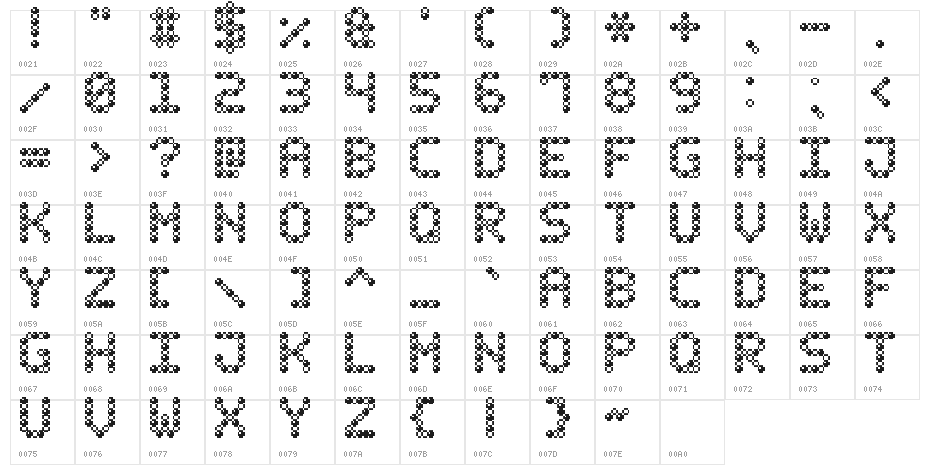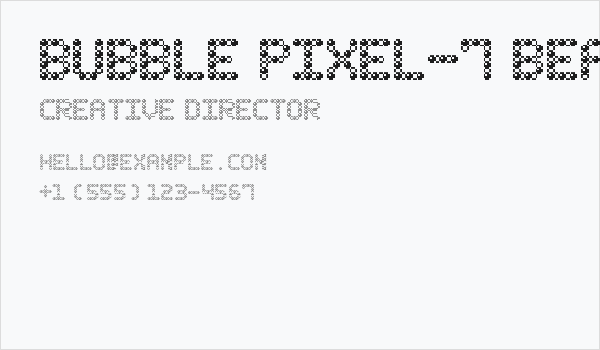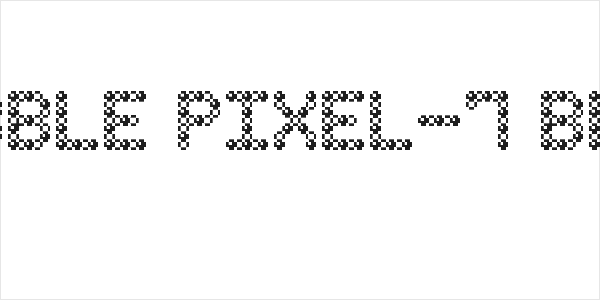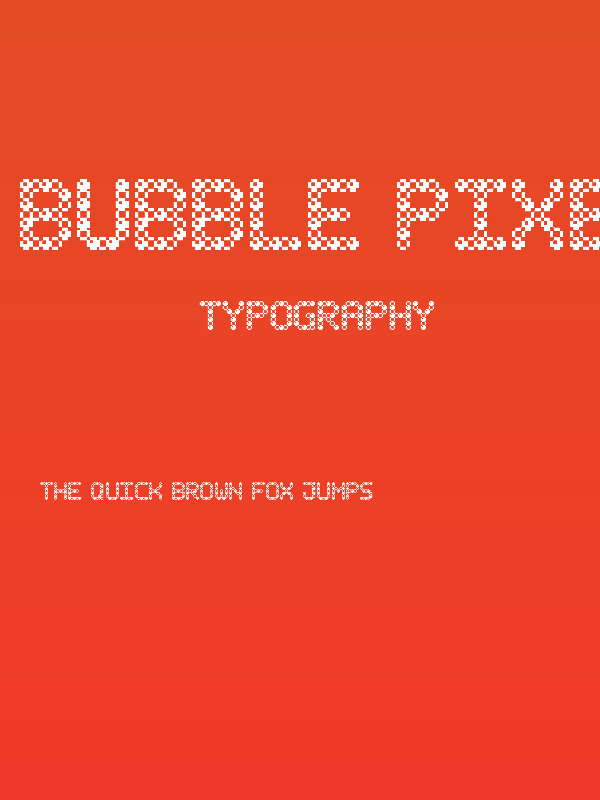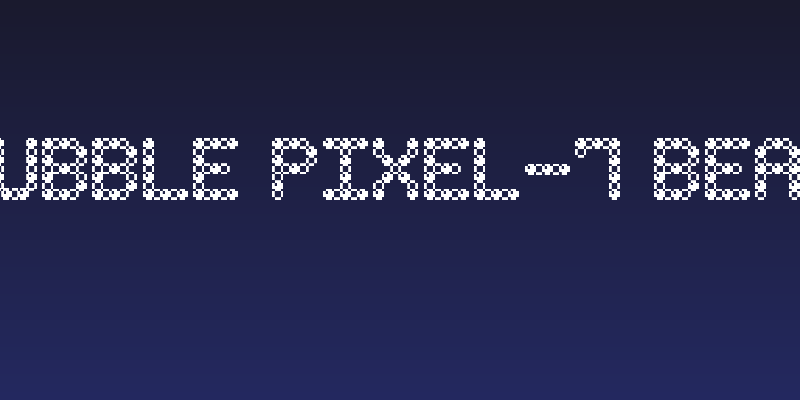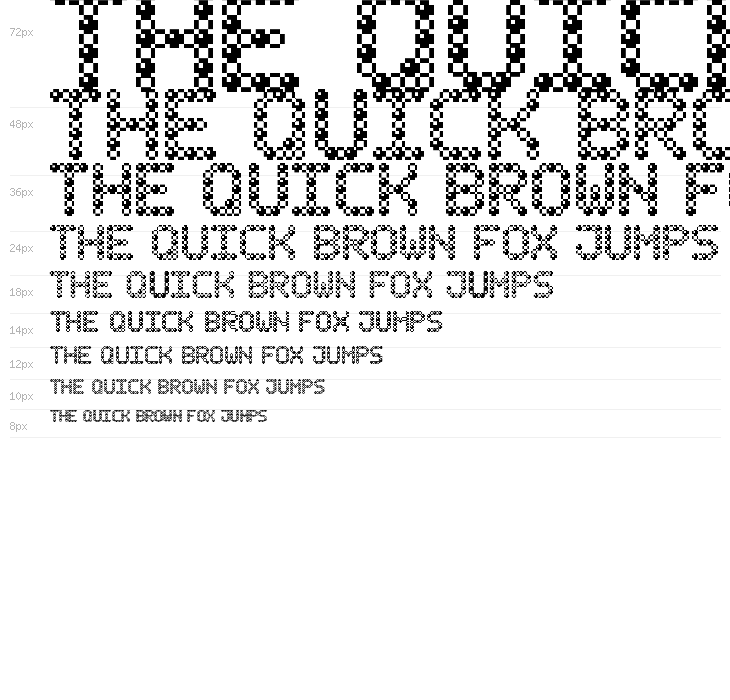
Bubble Pixel-7 Bead Font
Bubble Pixel-7 Bead Description
This font features a unique pixelated design, where each character is composed of small, circular dots that resemble beads. The overall appearance is playful and reminiscent of retro digital displays or early video game graphics. The characters are evenly spaced, maintaining a consistent grid-like structure that enhances readability despite the decorative style. The font includes both uppercase and lowercase letters, numbers, and a variety of special characters, making it versatile for creative projects. Its distinct style is eye-catching and ideal for designs that require a fun, nostalgic, or tech-inspired look.
| Overall Style | Retro, Playful |
| Proposed Projects | Ideal for video game graphics, digital art, retro-themed posters, and playful branding projects. |